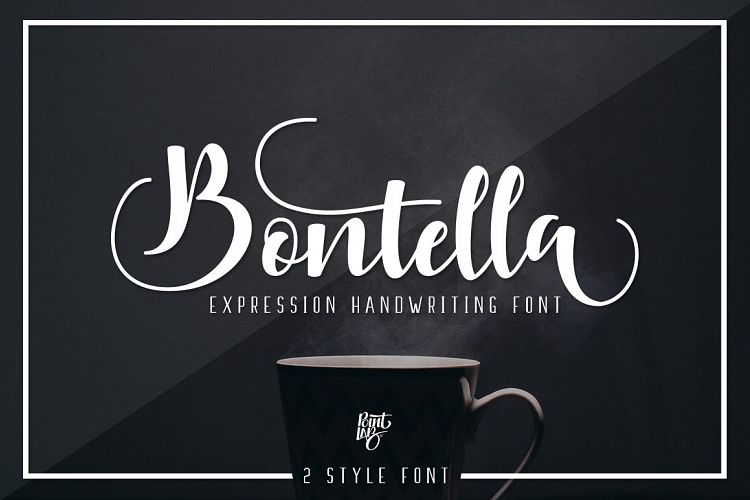
Bontella Font: A Fresh and Modern Script Font Duo
In the world of typography, fonts play a crucial role in conveying messages, expressing emotions, and creating visual identities. Among the numerous font styles available, script fonts have gained immense popularity for their elegance, sophistication, and versatility. One such font that has caught the attention of designers and typography enthusiasts is Bontella Font. In this article, we’ll explore the features, benefits, and uses of Bontella Font, a fresh and modern script font duo.
What is Bontella Font?
Bontella Font is a modern script font duo that consists of two fonts: Bontella Script and Bontella Script Extra. This font pair is designed to provide a fresh and unique typographic experience, making it suitable for a wide range of applications, from digital media to print and die-cut projects.
Extensive Glyph Set and PUA Encoding
One of the standout features of Bontella Font is its extensive glyph set, comprising over 420 unique glyphs. This vast character set allows designers to create complex and intricate typographic designs, making it ideal for projects that require a high level of customization. Additionally, Bontella Font uses PUA (Private Use Area) encoding, which enables easy access to alternate characters. This feature ensures that designers can use the font in any software, without worrying about compatibility issues.
Versatile and Multi-Purpose
Bontella Font is an incredibly versatile font duo, suitable for a wide range of applications, including:
- Digital media: Use Bontella Font to create stunning digital content, such as social media graphics, blog posts, and website headers.
- Print projects: Bontella Font is perfect for print projects, including brochures, flyers, posters, and business cards.
- Die-cut projects: The font’s intricate design and precise lines make it an excellent choice for die-cut projects, such as custom signs, logos, and decals.
Benefits for Designers
Bontella Font offers several benefits for designers, including:
- Customization: The font’s vast character set and alternate characters allow designers to experiment with different typographic styles and create unique designs.
Tips and Tricks for Using Bontella Font
To get the most out of Bontella Font, here are some tips and tricks:
- Experiment with different sizes: Bontella Font looks great in various sizes, from large headings to smaller body text.
- Mix and match: Combine Bontella Script and Bontella Script Extra to create visually appealing typographic combinations.
- Pay attention to kerning: Adjust the kerning to ensure that the text looks balanced and visually appealing.